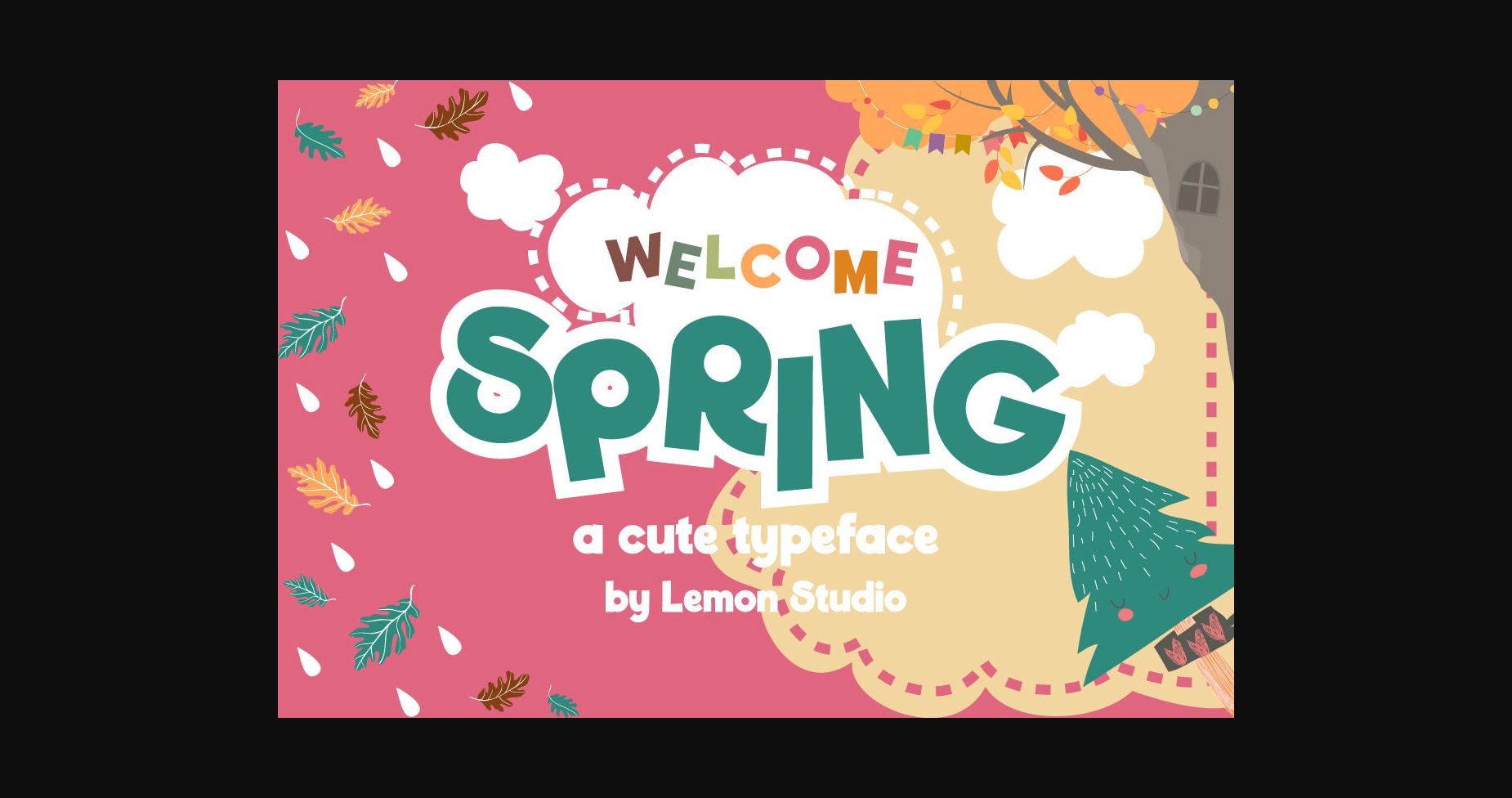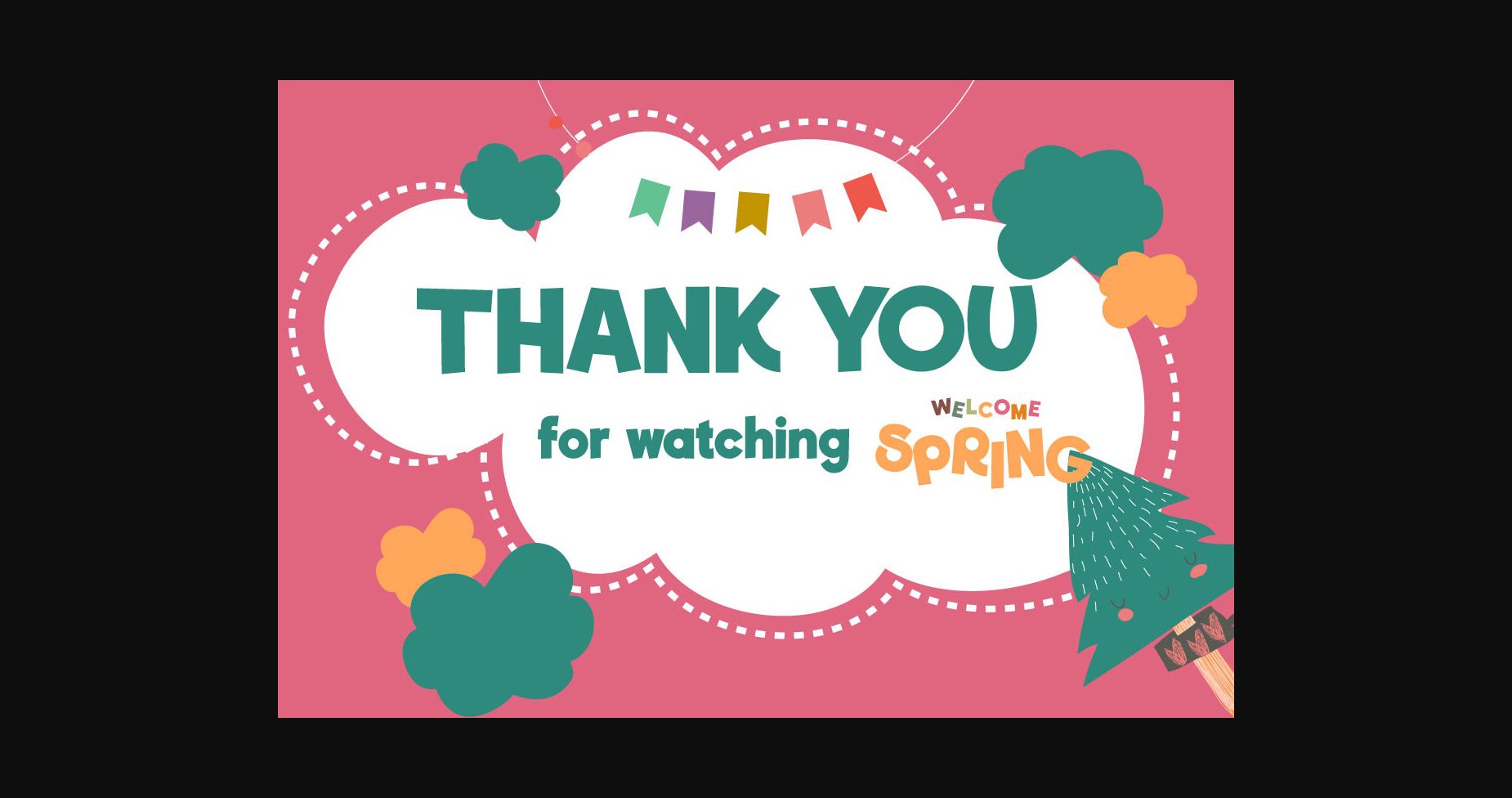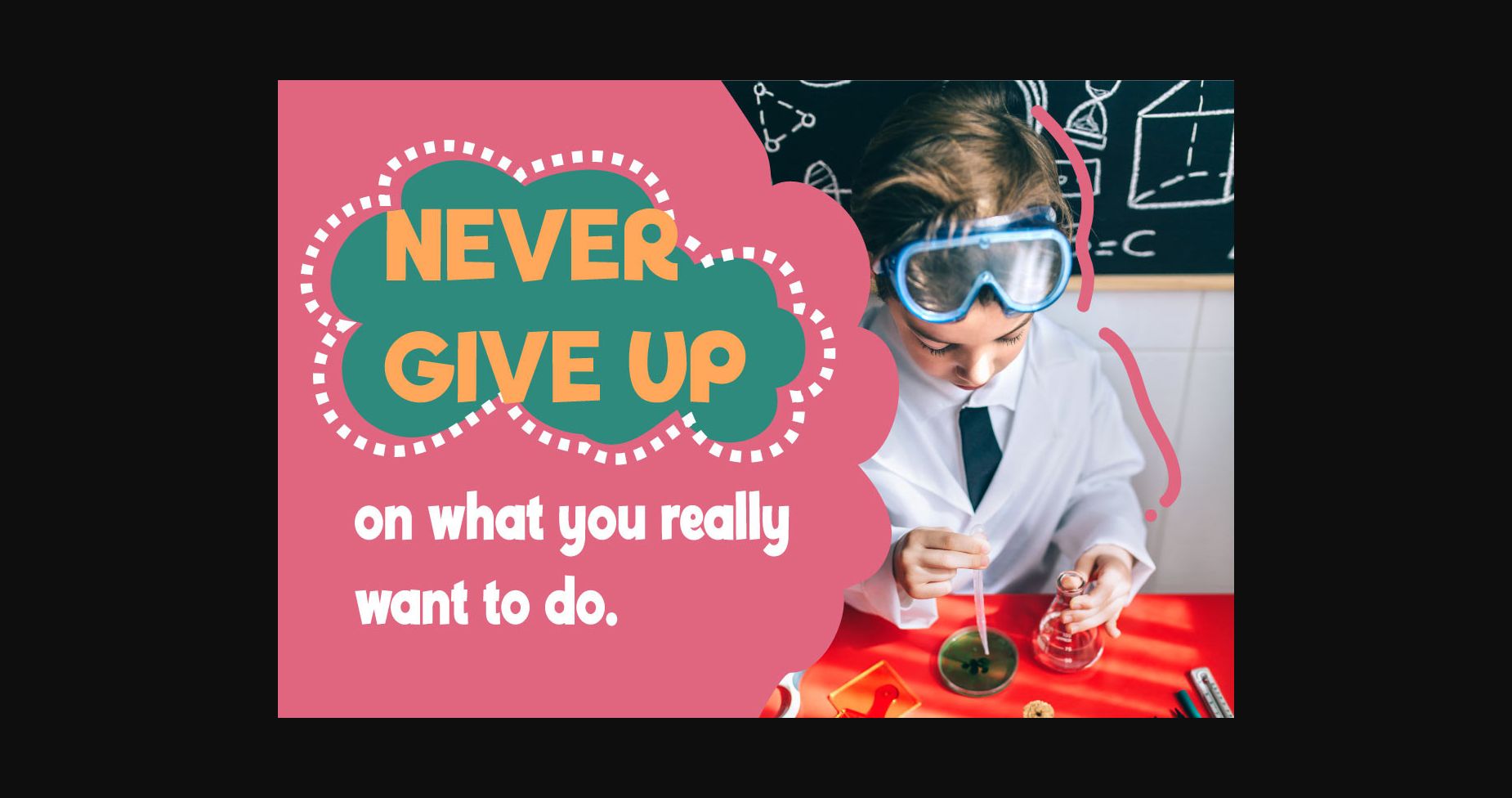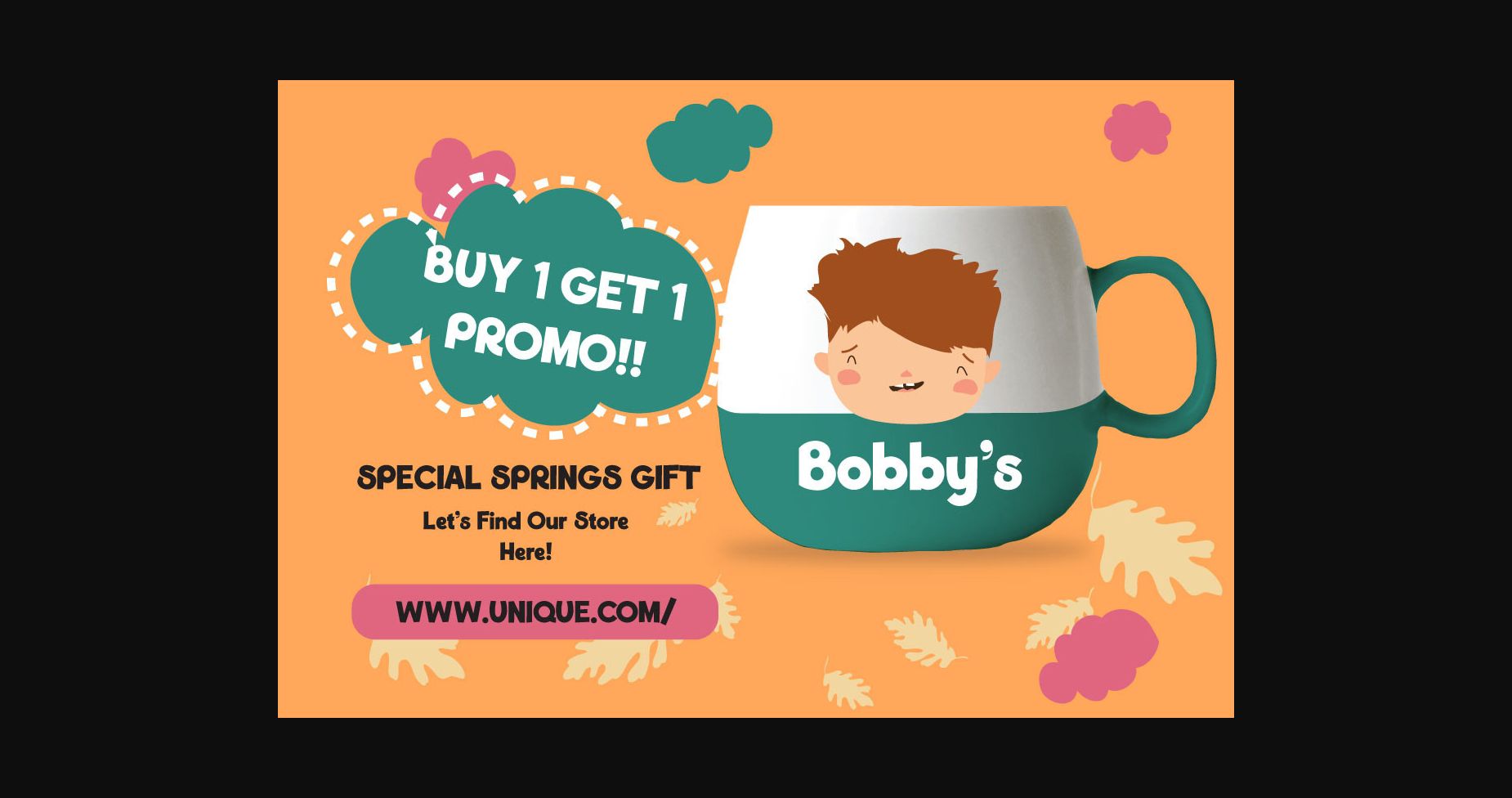
Welcome Spring Font
About Welcome Spring Font
Welcome Spring is a cute, fun, and bold sans serif font. This cool font is great for cartoon logos and short titles, to enliven children’s books and greeting cards, for packaging headings, or any other project you want to make interesting with this font.